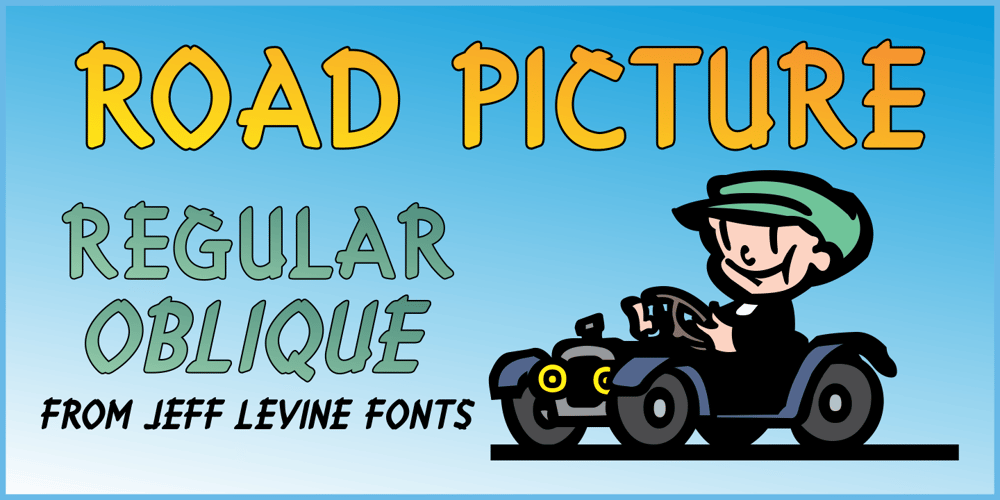
Road Picture JNL
Road Picture JNL font
Road Picture JNL Font Family was designed by Jeff Levine and published by Jeff Levine. Road Picture JNL contains 2 styles and family package options. Road Picture JNL was modeled after the hand lettered title and credits for the 1940 Bob Hope-Bing Crosby semi-musical comedy “Road to Singapore”, and is available in both regular and oblique versions.Although the lettering design doesn’t resemble anything that was probably used in Singapore at the time, its faux “exotic” look still makes for an interesting revival.Bob Hope and Bing Crosby made a total of seven “road” pictures, hence the homage in the name of this type font.